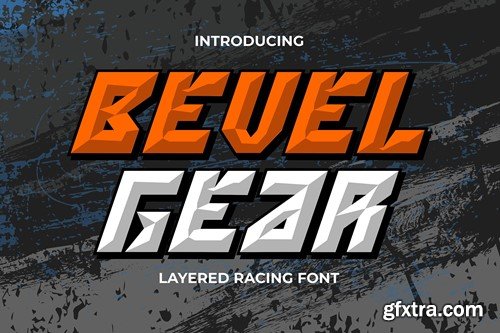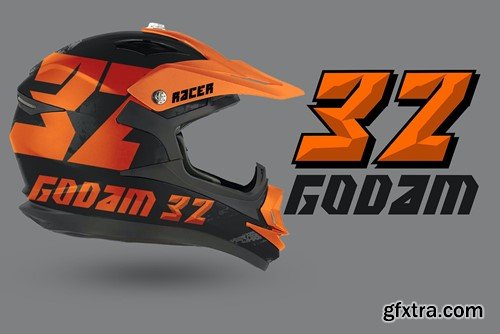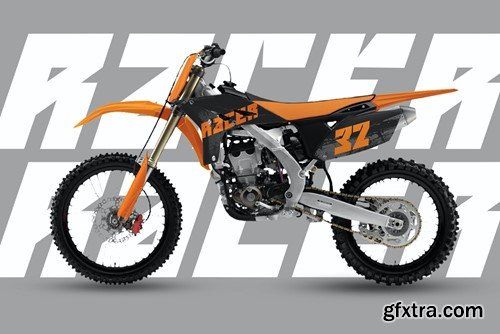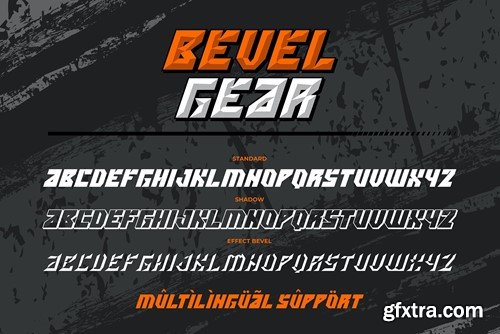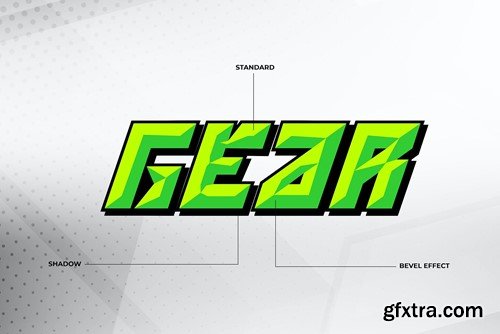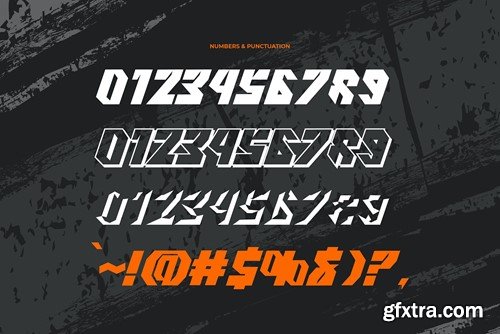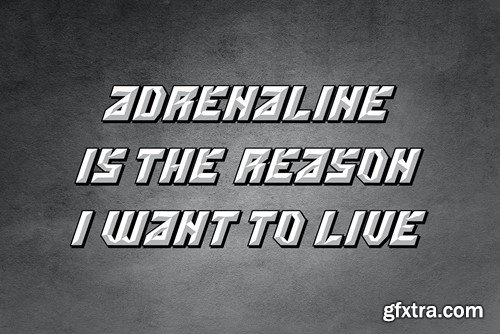
Bevel Gear is a high-octane, layered racing font that brings the adrenaline and excitement of the racetrack to your designs. With its dynamic, beveled lettering, it captures the speed and power of the racing world, making it the ideal choice for projects that demand a bold, high-energy, and dynamic style. Whether it's used for racing event posters, automotive branding, or any design that needs to convey the spirit of the race, Bevel Gear adds a turbocharged and visually striking aesthetic to your typography, ensuring your text stands out on the fast track. File Included: Features: That's it! If you have any questions don't hesitate to ask! Stay Classy!